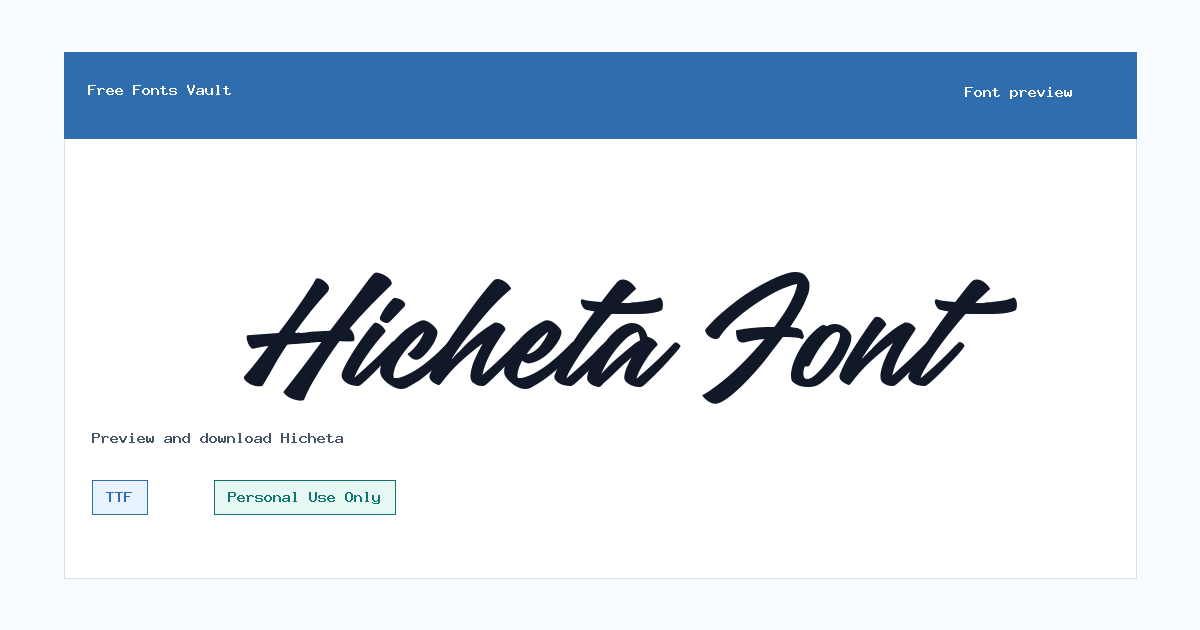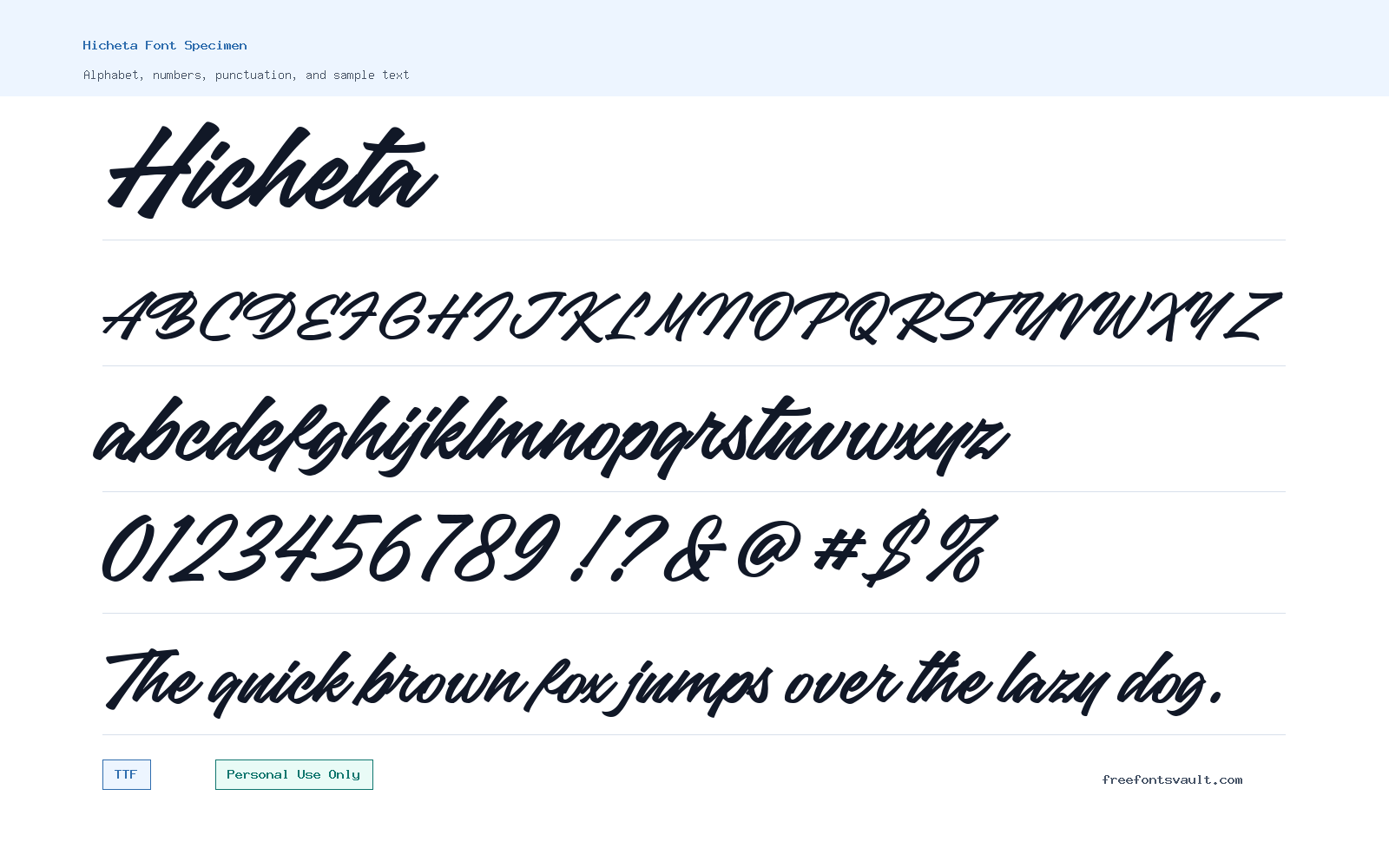
Hicheta
Hicheta font preview showing the family name
Hicheta Font
Hicheta font specimen showing alphabet, numbers, and sample text
Hicheta is a script-style display font from Blankids Studio, offered with a Personal Use Only license. It is best approached as a decorative typeface for short, expressive text rather than long reading copy.
About Hicheta Font
Hicheta has the feel of a handwritten script font, which makes it a natural choice when you want lettering that feels more personal than a standard sans serif or serif. Use the preview box to test brand names, headings, initials, short quotes, product labels, and social graphics. Script fonts can change character spacing and legibility quickly depending on the word, so it is worth trying the exact text you plan to use before downloading. Short names and compact phrases will usually show the font more clearly than full sentences.
For design work, Hicheta can fit logo concepts, boutique-style mockups, greeting graphics, posters, packaging drafts, and web hero sections where the type is meant to be a focal point. Keep it large enough to show the letter shapes, and avoid using it for paragraphs, captions, navigation menus, or small mobile text. If you are building a logo or brand direction, test the font in black and white first before adding color, gradients, shadows, or texture. That helps you judge whether the wordmark still reads well without extra styling. For posters and social posts, give the lettering enough breathing room and avoid placing it over busy images unless you add a soft background panel or contrast layer.
• Script-style display lettering suited to short headings, names, and decorative text.
• Useful for previewing logo concepts, posters, labels, invitations, and social graphics.
• Works best when used at larger sizes with generous spacing and strong contrast.
• Pairs well with simple supporting typefaces that do not compete with the script style.
• Logo drafts and wordmark experiments
• Posters, flyers, and event graphics
• Web hero mockups and landing page headings
• Boutique branding concepts and packaging previews
• Greeting cards, quote graphics, and social media titles
• Short display text where personality matters more than long-form readability
Who designed Hicheta?
Hicheta is credited to Blankids Studio.
What kind of projects is Hicheta good for?
Hicheta is most useful for short display text such as logo drafts, posters, packaging mockups, greeting graphics, web hero headings, and social media titles.
Is Hicheta good for body text?
It is better for short decorative text. For paragraphs, captions, menus, and small mobile text, use a simpler companion font.
What should I pair with Hicheta?
Pair it with a clean sans serif or a quiet serif. Let Hicheta handle the expressive headline while the companion font carries details and longer copy.